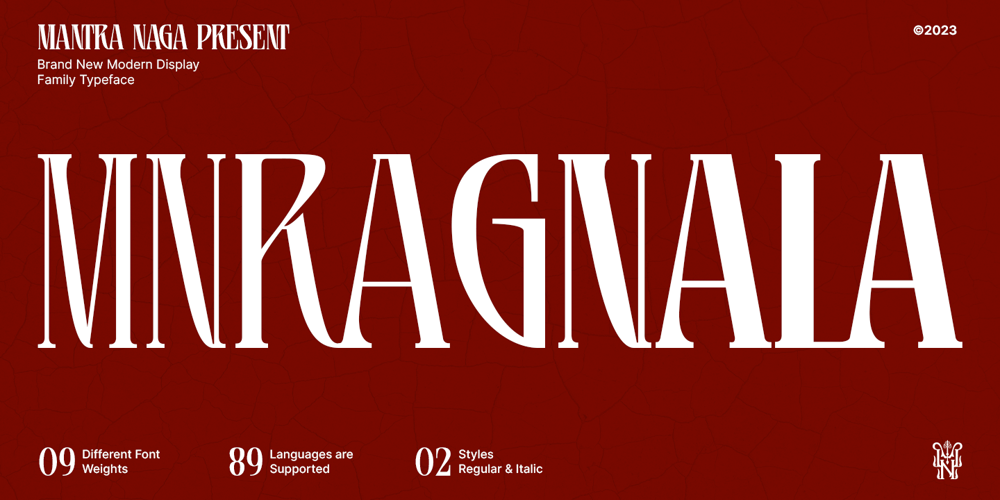
MNRagnala Font Family was designed by Fredo Eka Pratama and published by Mantra Naga Studio. MNRagnala contains 18 styles and family package options. MNRagnala is a display serif typeface that boasts a versatile collection of 18 font families, encompassing 9 weight weights and 2 unique styles. With an inherent blend of elegance and boldness, this font exudes a commanding presence, making it an ideal choice for branding endeavors and diverse design requirements.